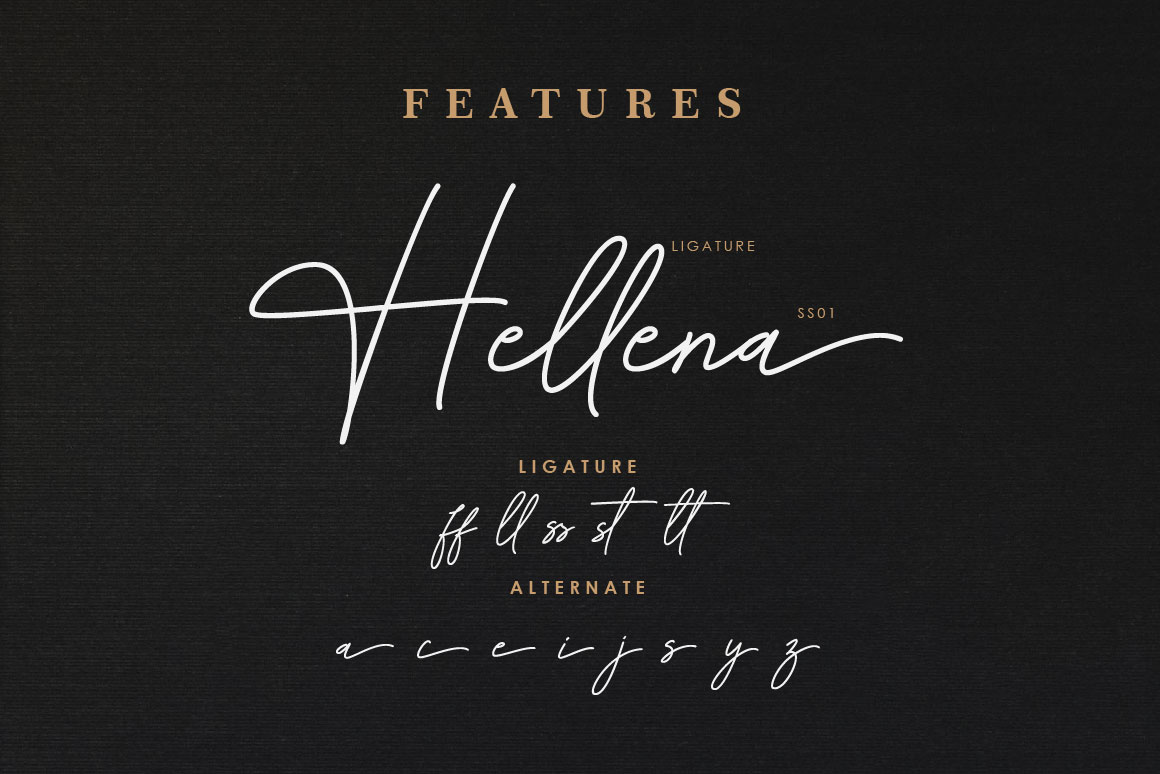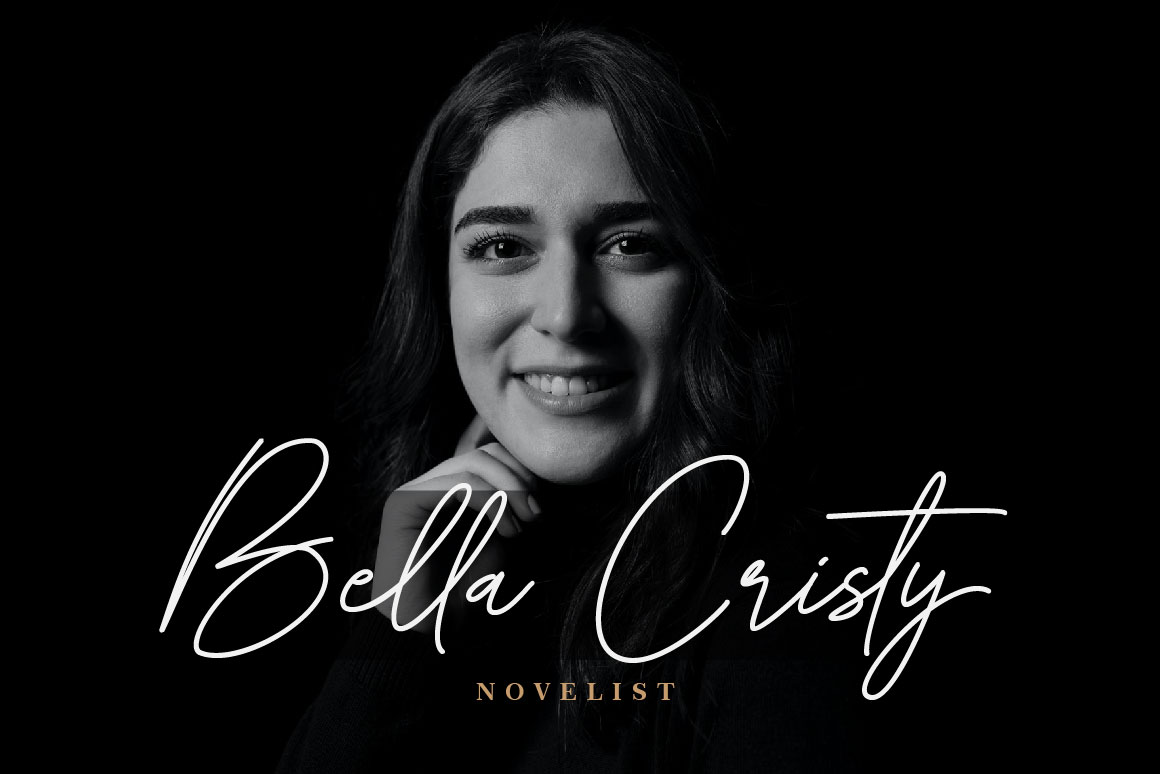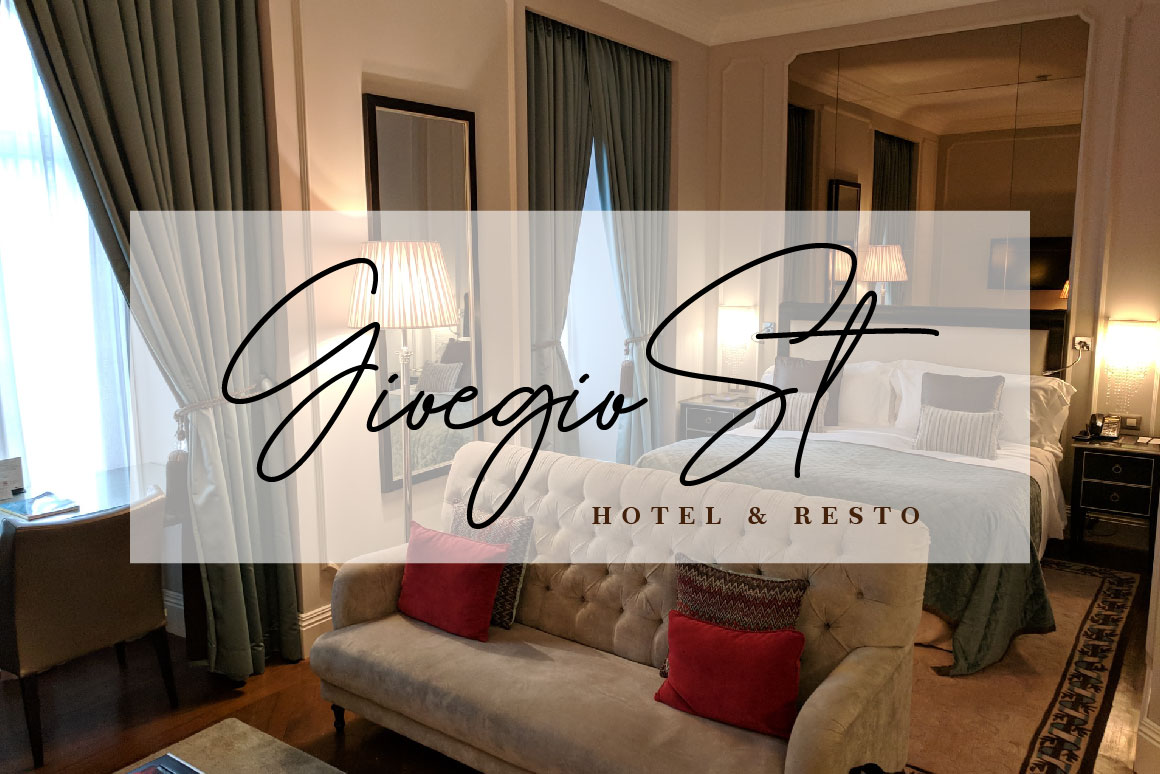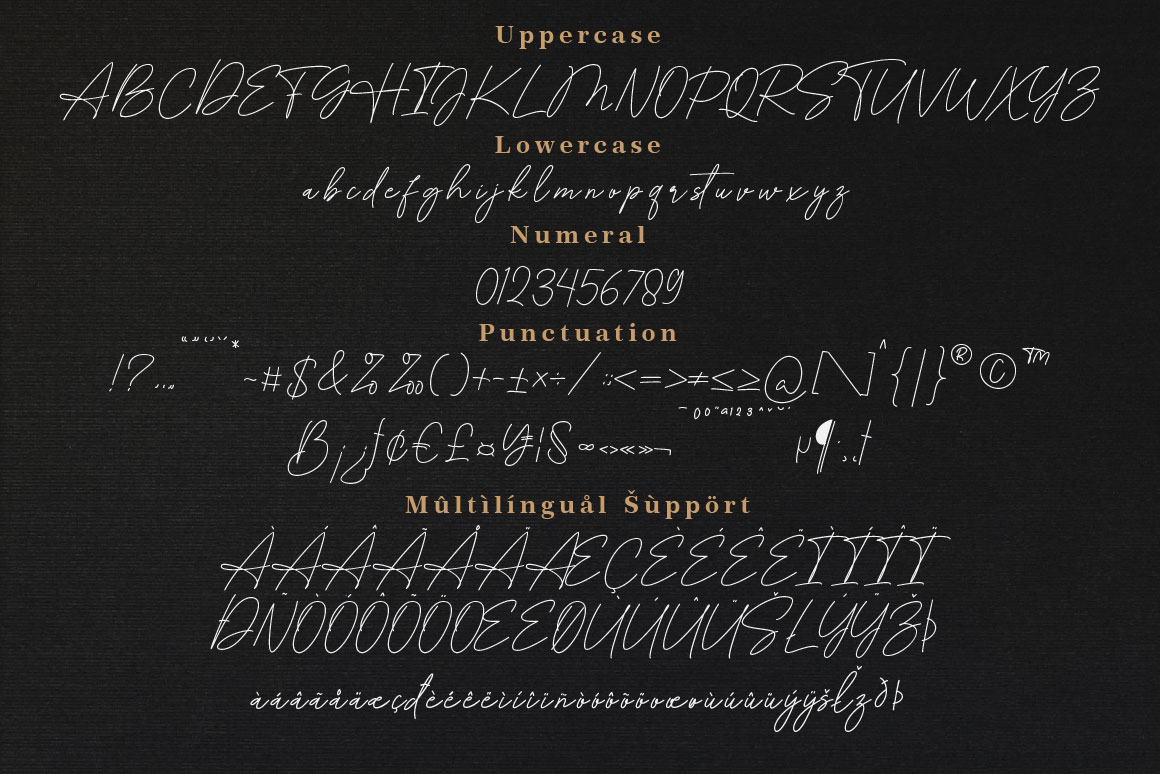
Hellena Font
Hellena Handwritten Font
This is a lovely and stylish handwritten font, that emanates sophistication and elegance. Its stylish alternates and ligatures make this font the perfect match for any project. This font is PUA encoded which means you can access all of the glyphs and swashes with ease!